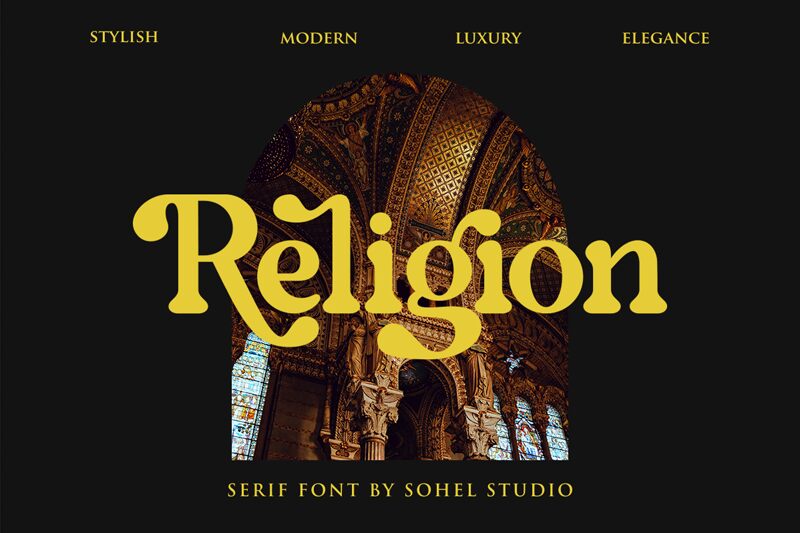
Religion, a captivating serif font by Sohel Studio, embodies both modern and retro aesthetics. Its semi-bold weight adds a touch of sophistication to any design.
With its extensive range of alternatives and ligatures, Religion enables the creation of stunning logos, quotes, blog posts, and magazine imagery. Ideal for branding projects and wedding invitations, this stylish font is versatile enough to elevate your creative endeavors to new heights.